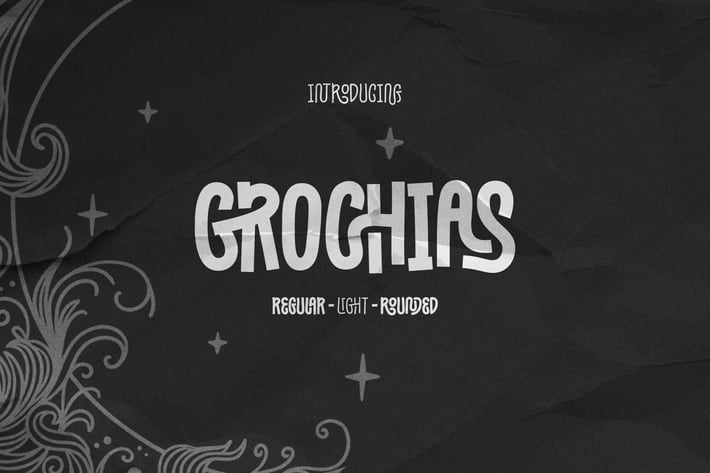
Grochias Font
Grochias is a sophisticated condensed decorative typeface, designed to bring an elegant and personal touch to your projects. With its clean lines and fluid strokes, Grochias exudes a timeless charm, making it perfect for modern branding, invitations, logos, and more. Its uniqueness is further enhanced by the inclusion of ligatures, allowing for seamless letter connections and a naturally flowing writing style. Whether you're looking to add a stylish flair to your designs or capture a handwritten aesthetic, Grochias offers a balance of elegance and uniqueness that stands out beautifully in any context.
Unique Condensed Decorative Font
Creative Ligatures
Basic Latin Glyphs
Elegant and Stylish
Numeral and Punctuation
Currencies